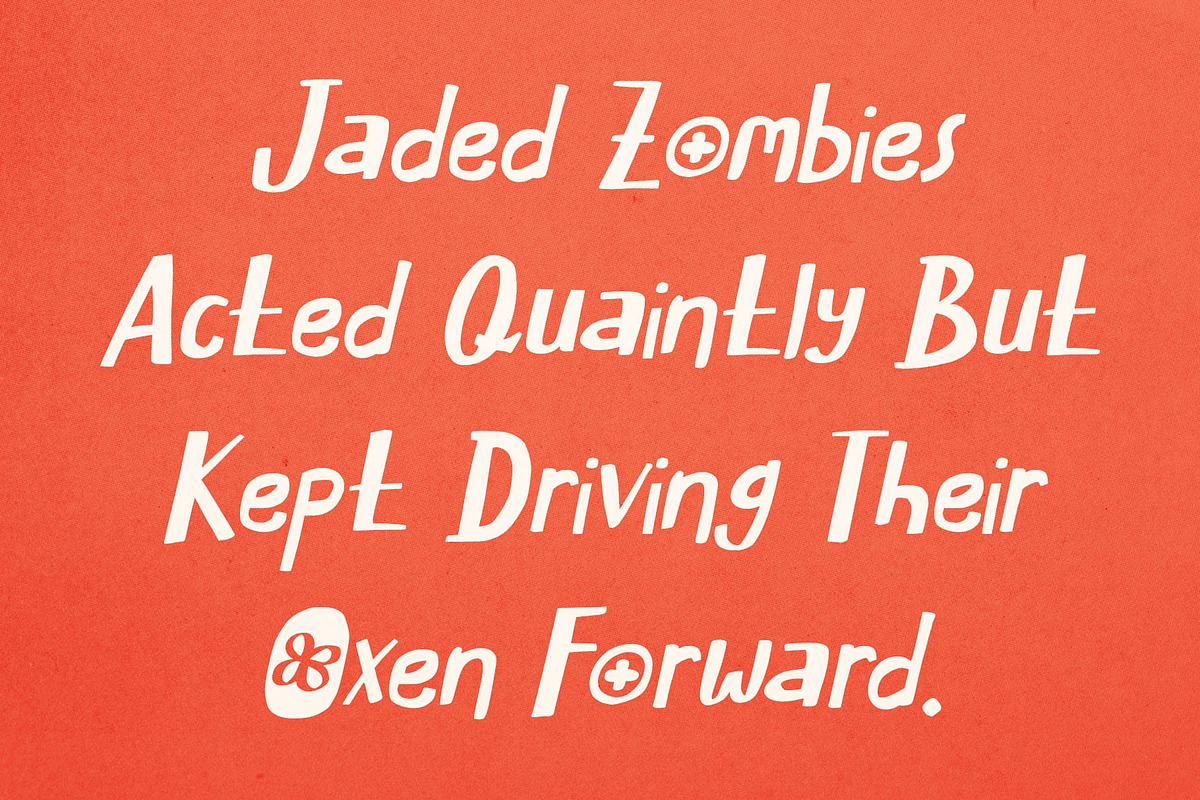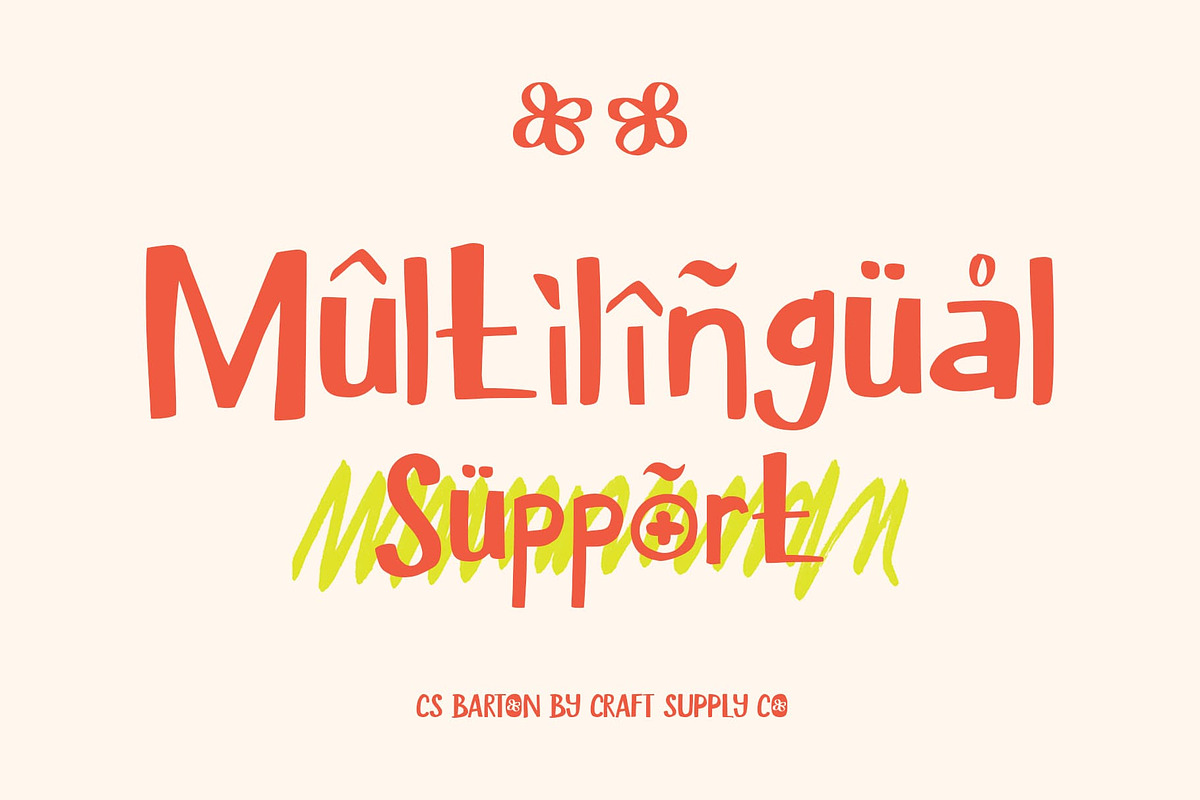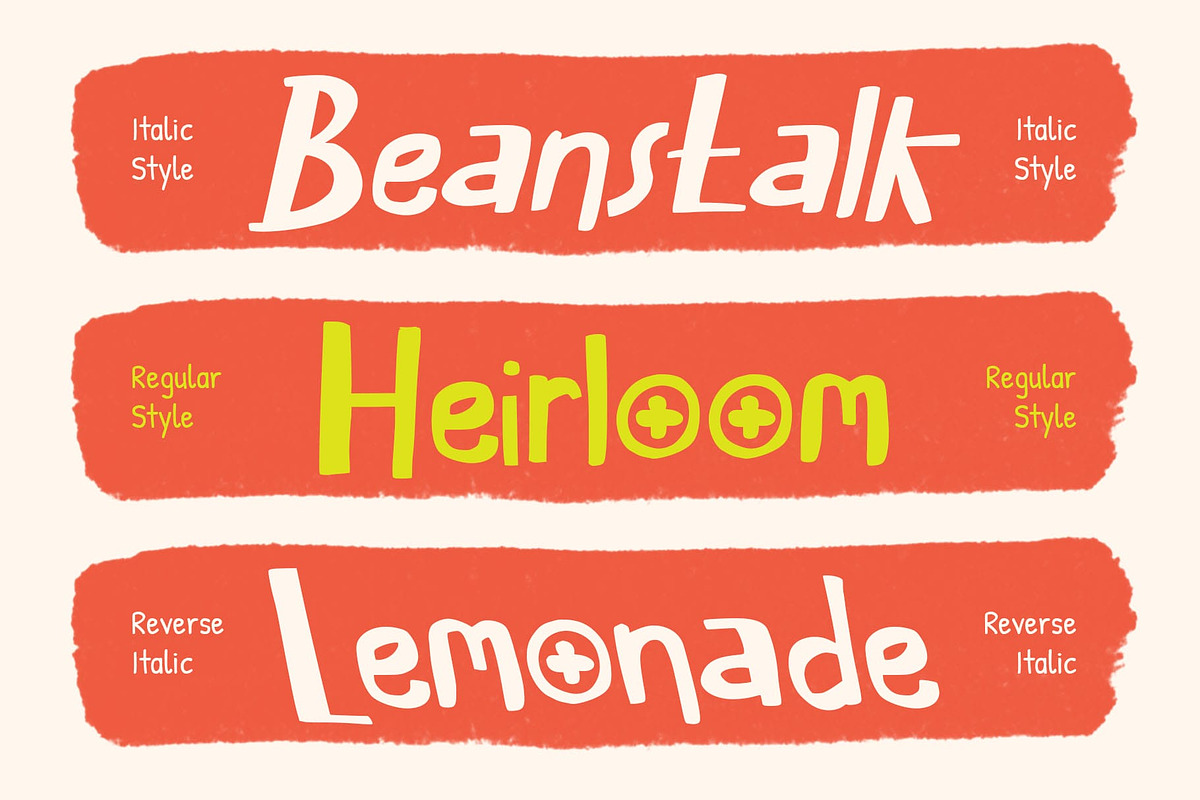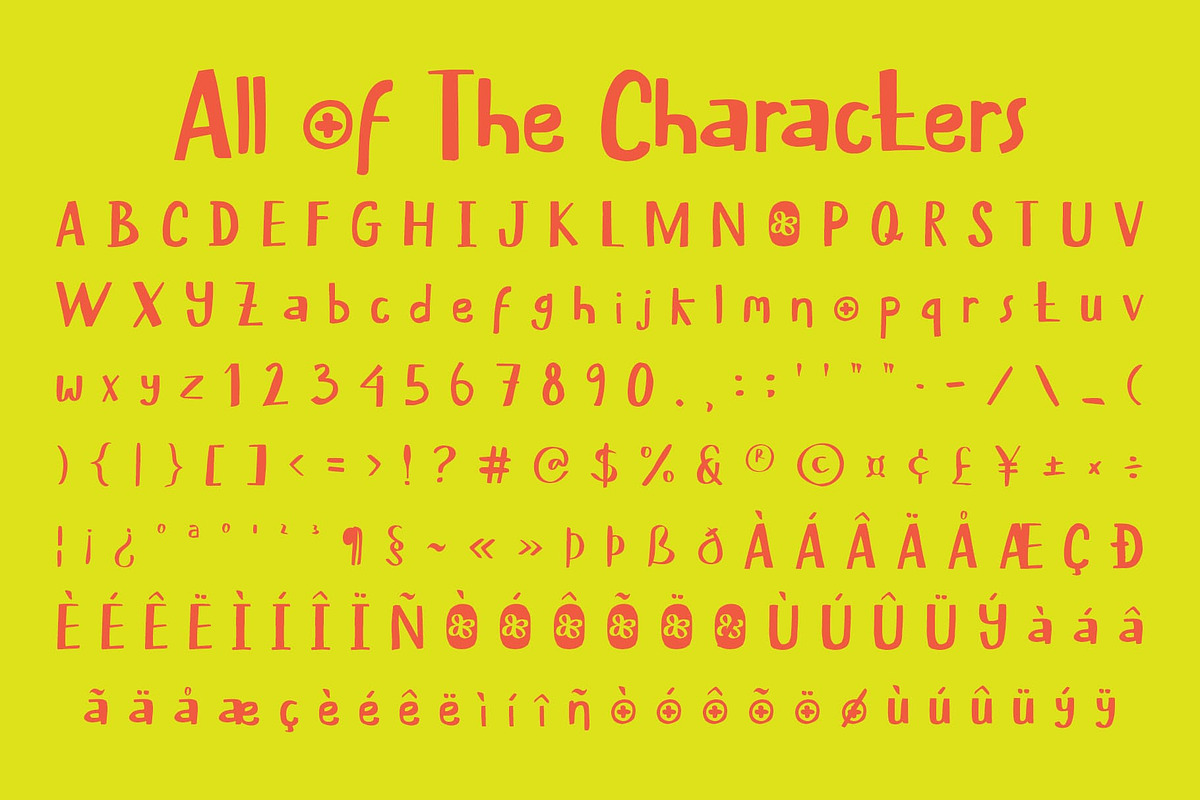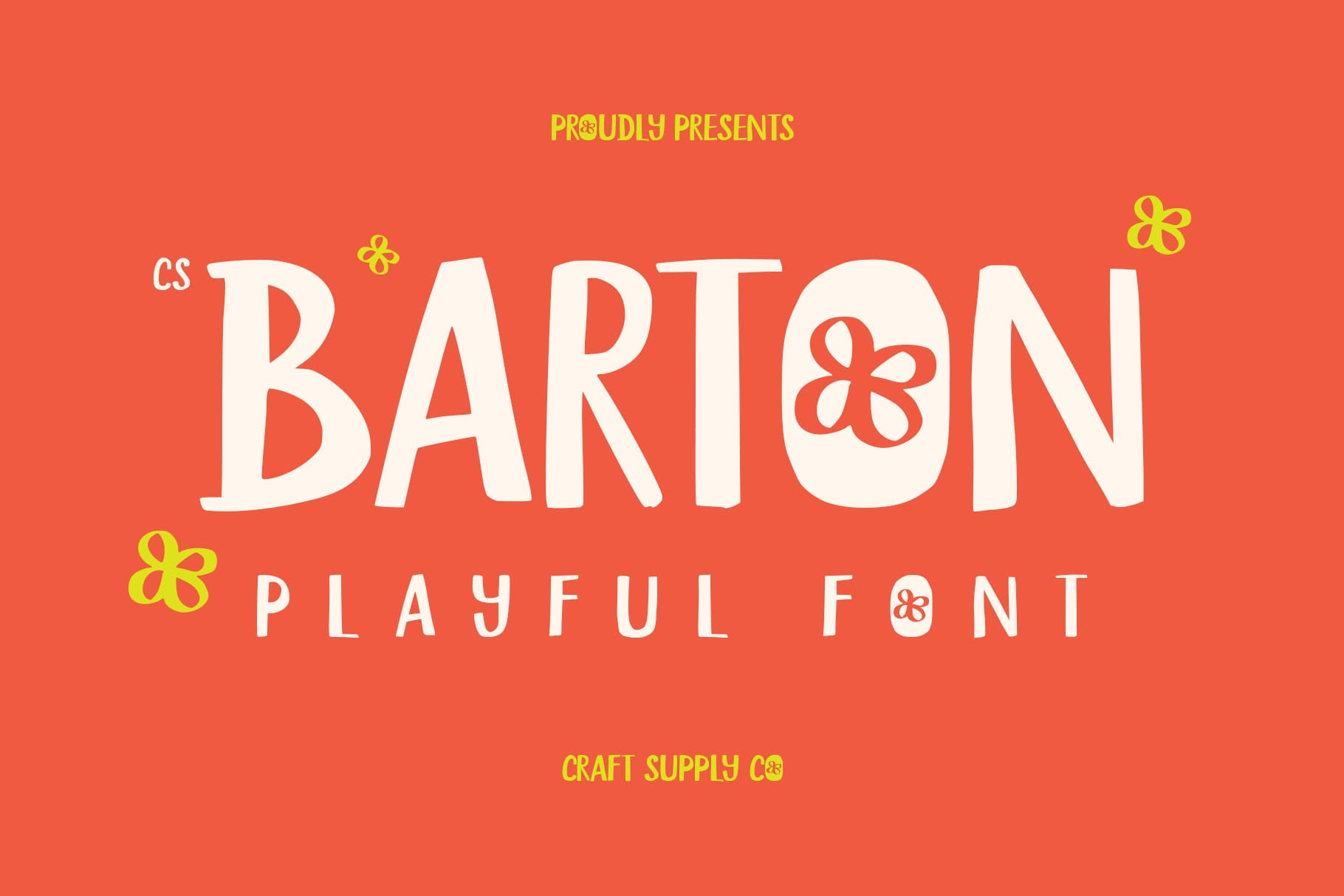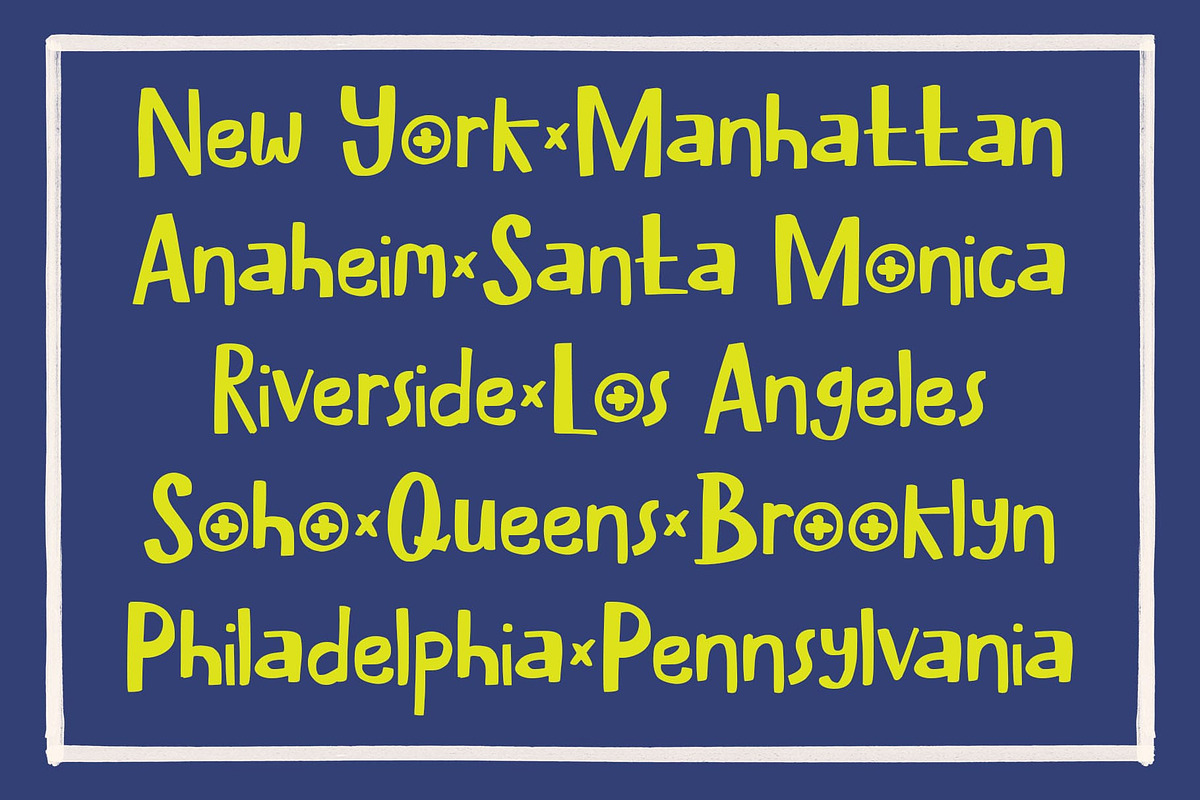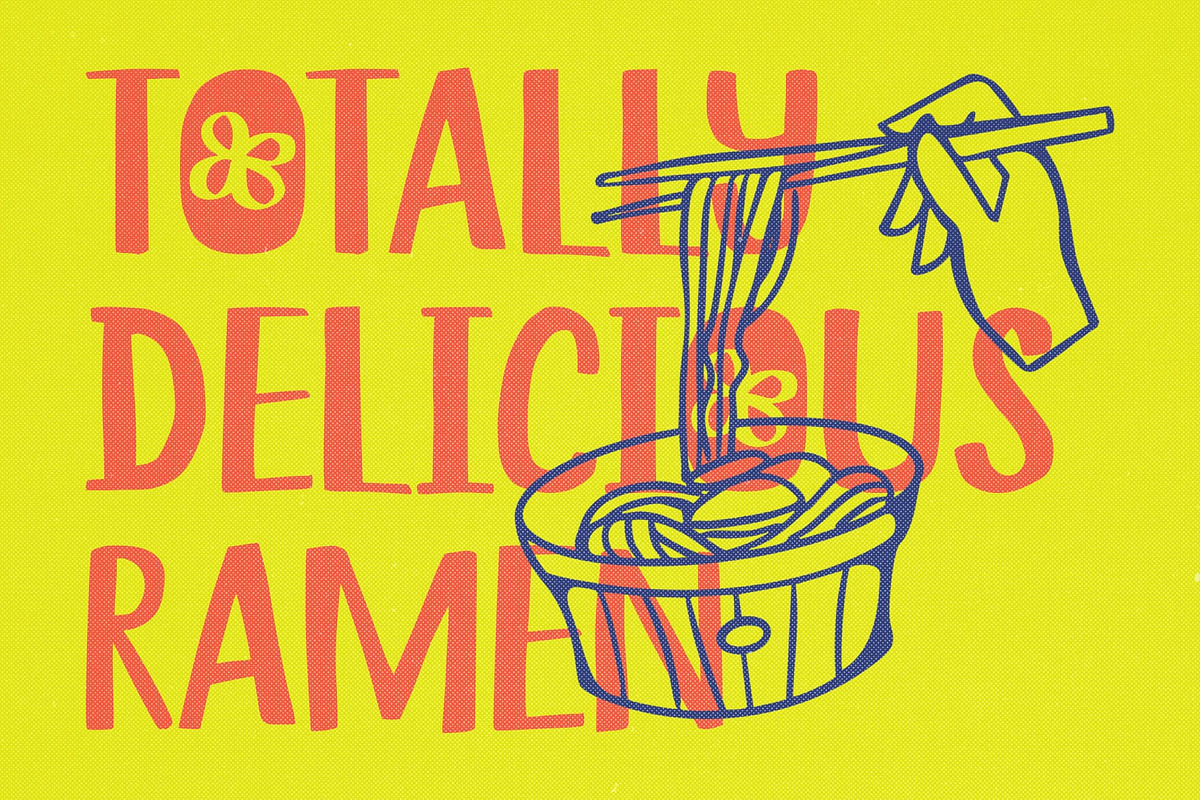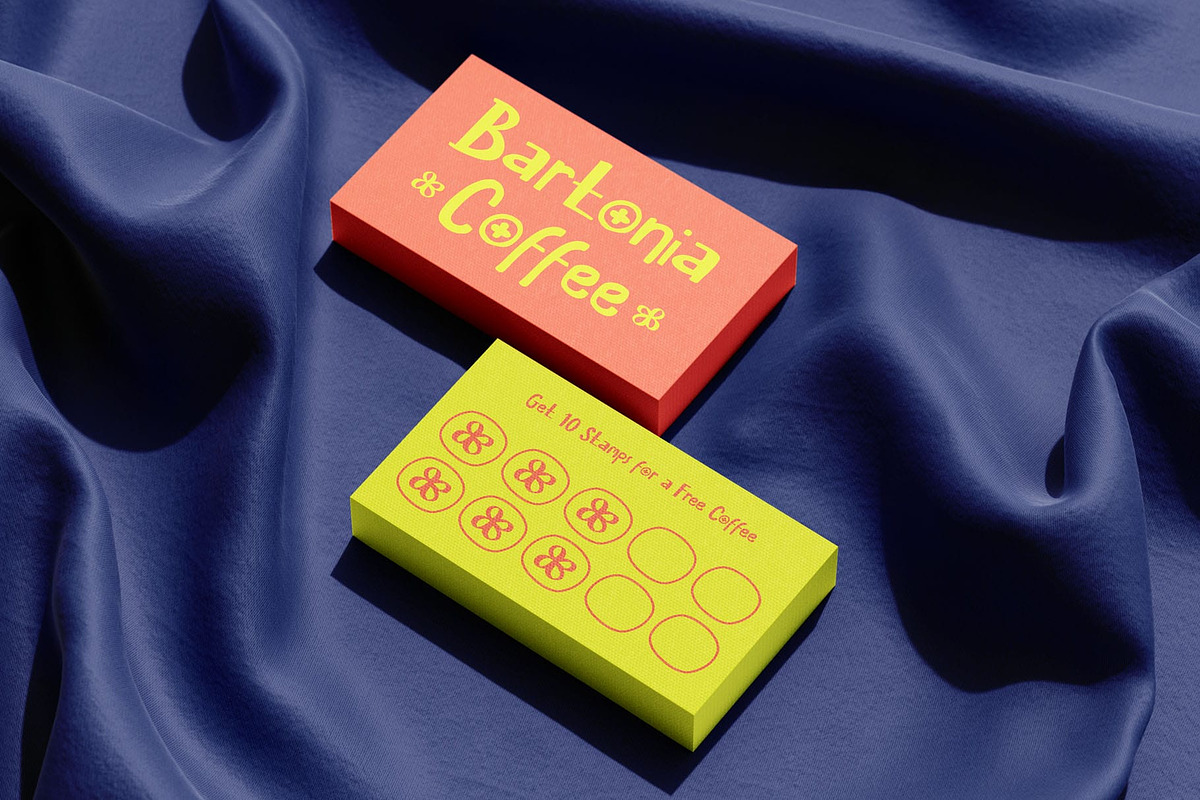
CS Barton – Playful Marker Font
CS Barton – Playful Marker Font with Feminine Charm: Handwritten Marker Font and Modern Personality
Carefree Energy with Handwritten Flair This font captures the spontaneous energy of marker strokes, delivering a playful and stylish handwritten display font feel. Its bold yet relaxed form makes text come alive with a casual vibrance, perfect for designs that want to radiate authenticity and approachability.
Floral Inspiration with Feminine Character What makes this font unique is its subtle inspiration from flowers. This touch infuses the font with a soft, slightly feminine quality, giving it warmth and delicacy while maintaining the confidence of a marker style. The result is a font that balances charm with bold expression.
Perfect for Branding and Lifestyle Projects This font shines in branding, lifestyle graphics, and social media posts. Its handwritten flair allows it to connect naturally with audiences, making it ideal for brands or projects that want to convey creativity, youthfulness, and personality with a relaxed tone.
Modern Versatility with a Playful Twist While playful at its core, this font maintains a modern balance that ensures versatility. It works equally well for bold headlines, quirky logos, or expressive captions, adapting seamlessly to both digital and print projects.